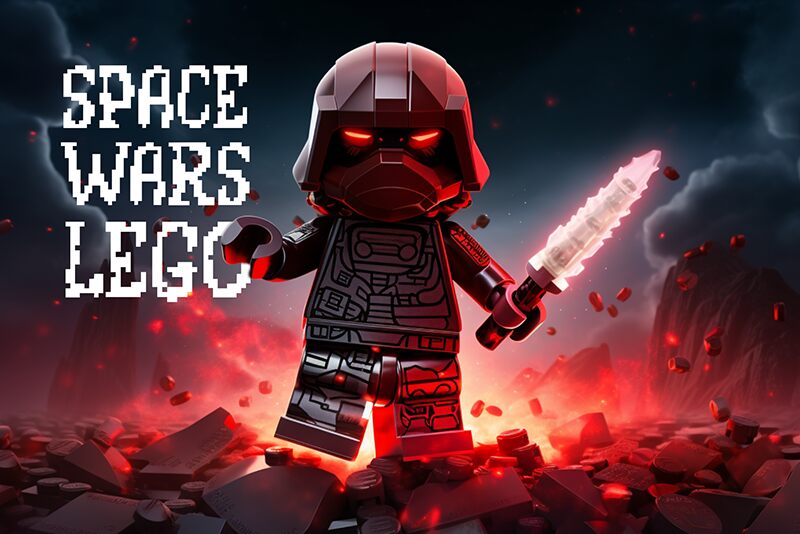
Digipixel font by DumadiStyle is a free techno-styled font with a design inspired by pixelated games and digital aesthetics. The font seamlessly blends modern technological motifs with intricate pixel details creating a playful and strong visual design. The attention to detail in each letter shines through, making it a well-constructed and cohesive font.
Use this free font to create a mysterious atmosphere, or a gaming vibe, or to give a simple design a clear focal point. Create digital games, websites, applications, signage systems, or digital products like apps, dashboards, or admin panels.